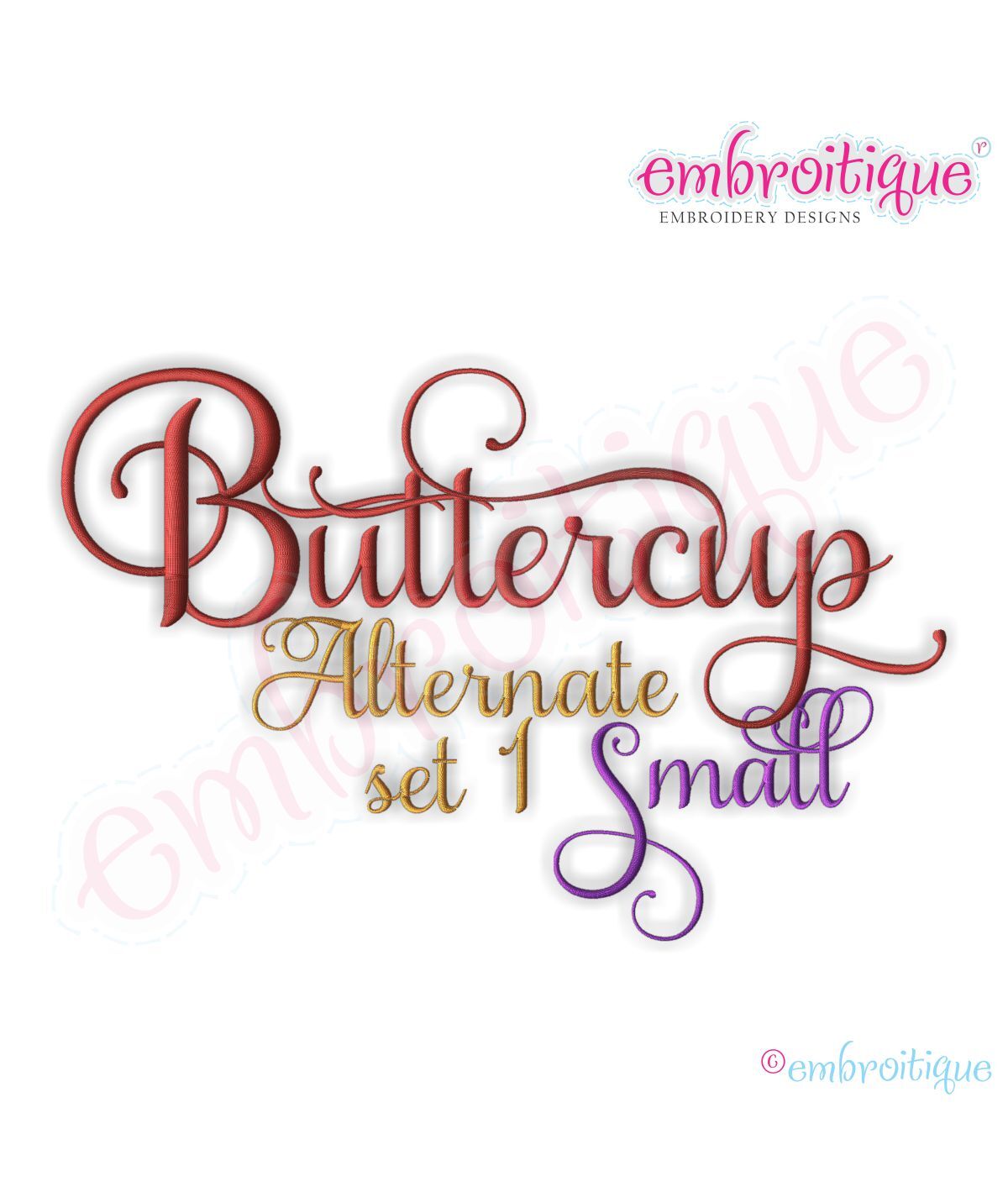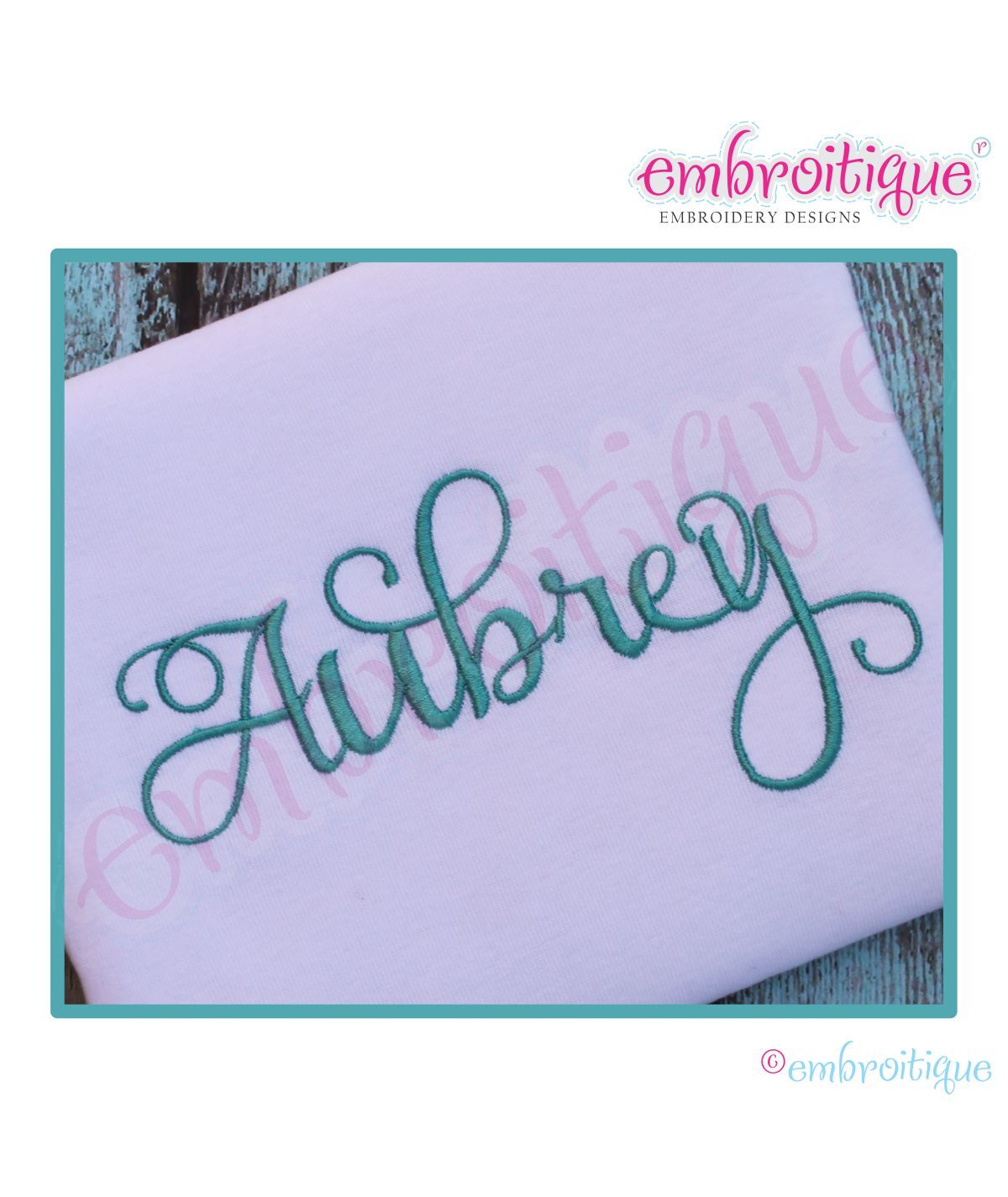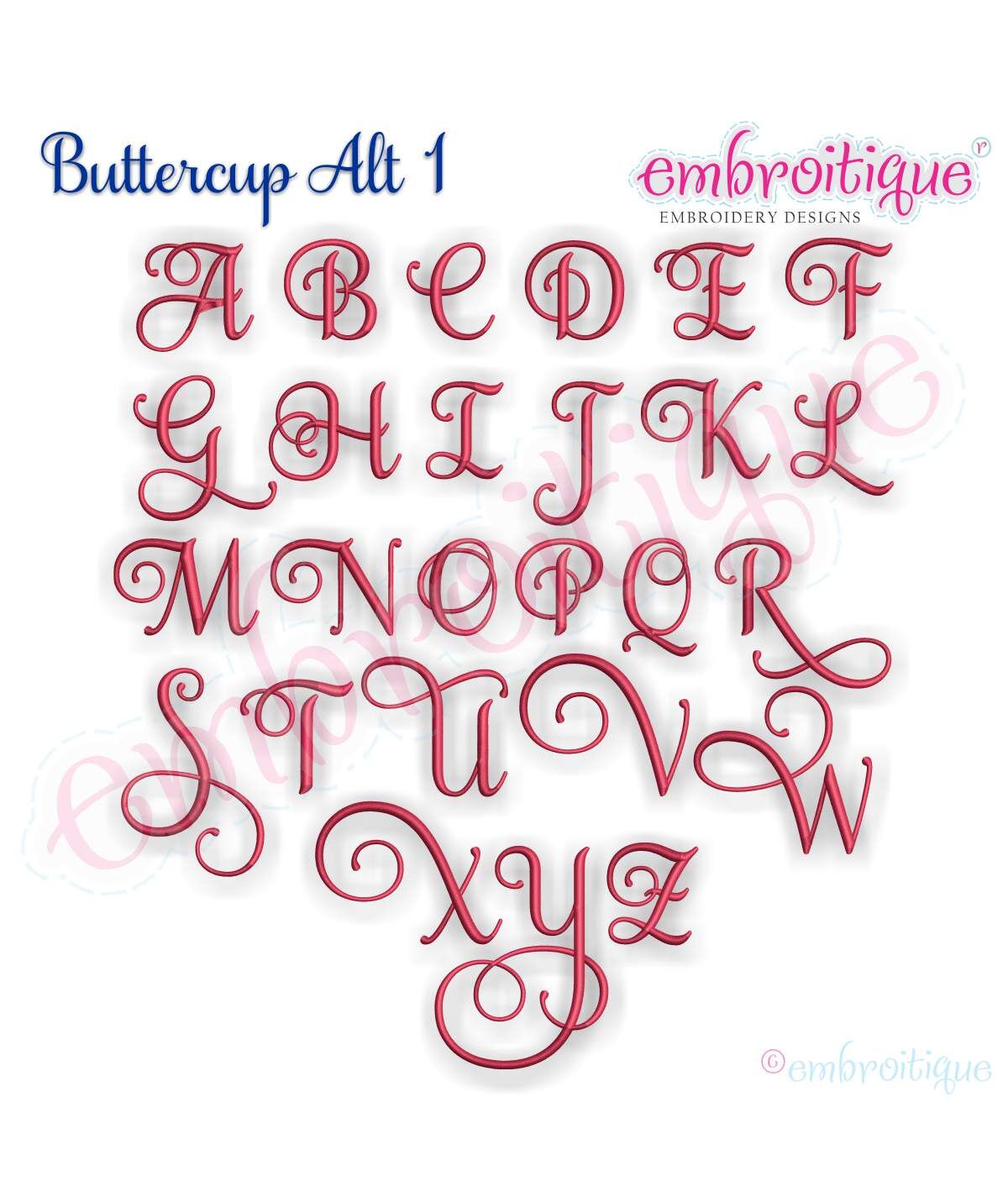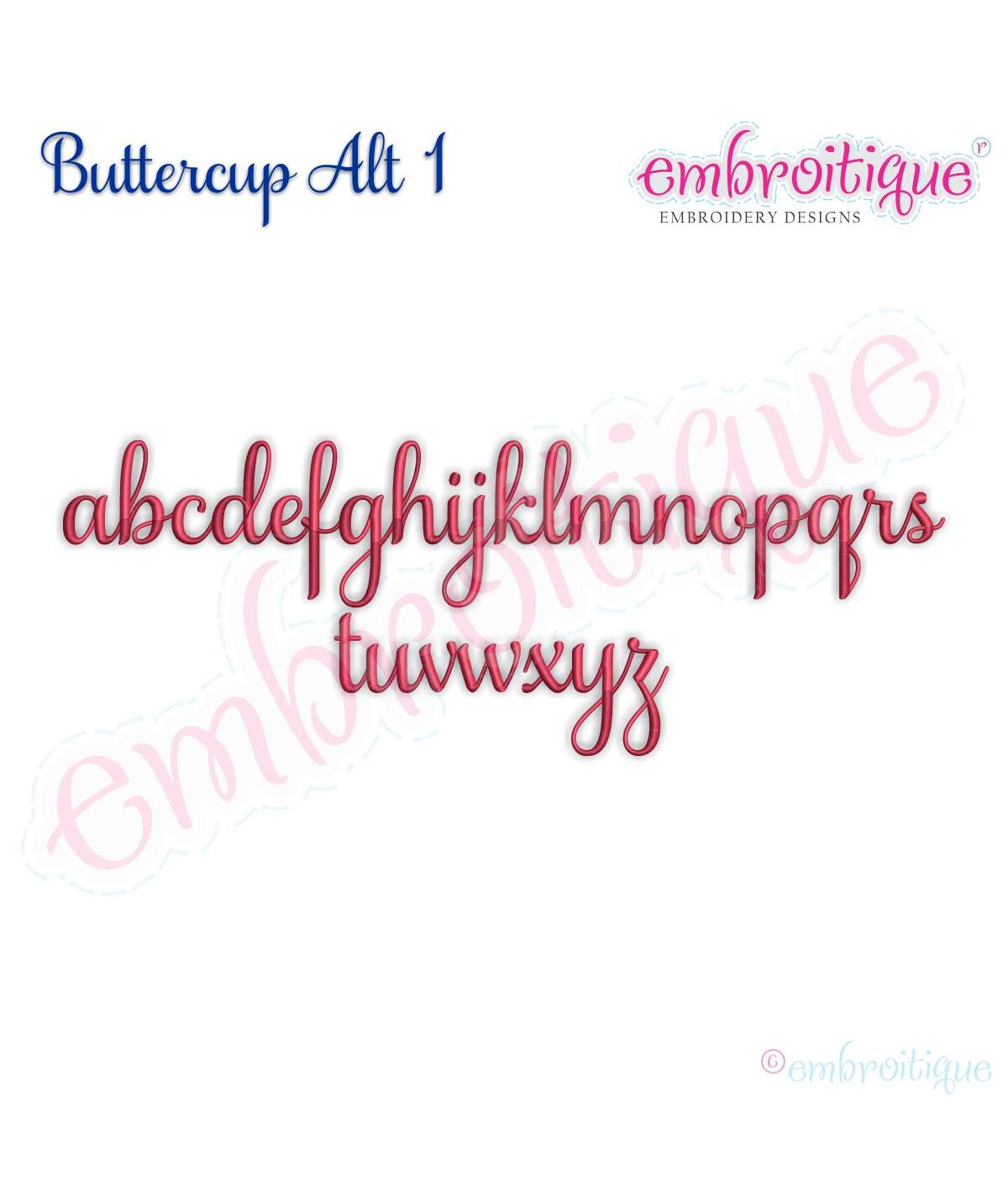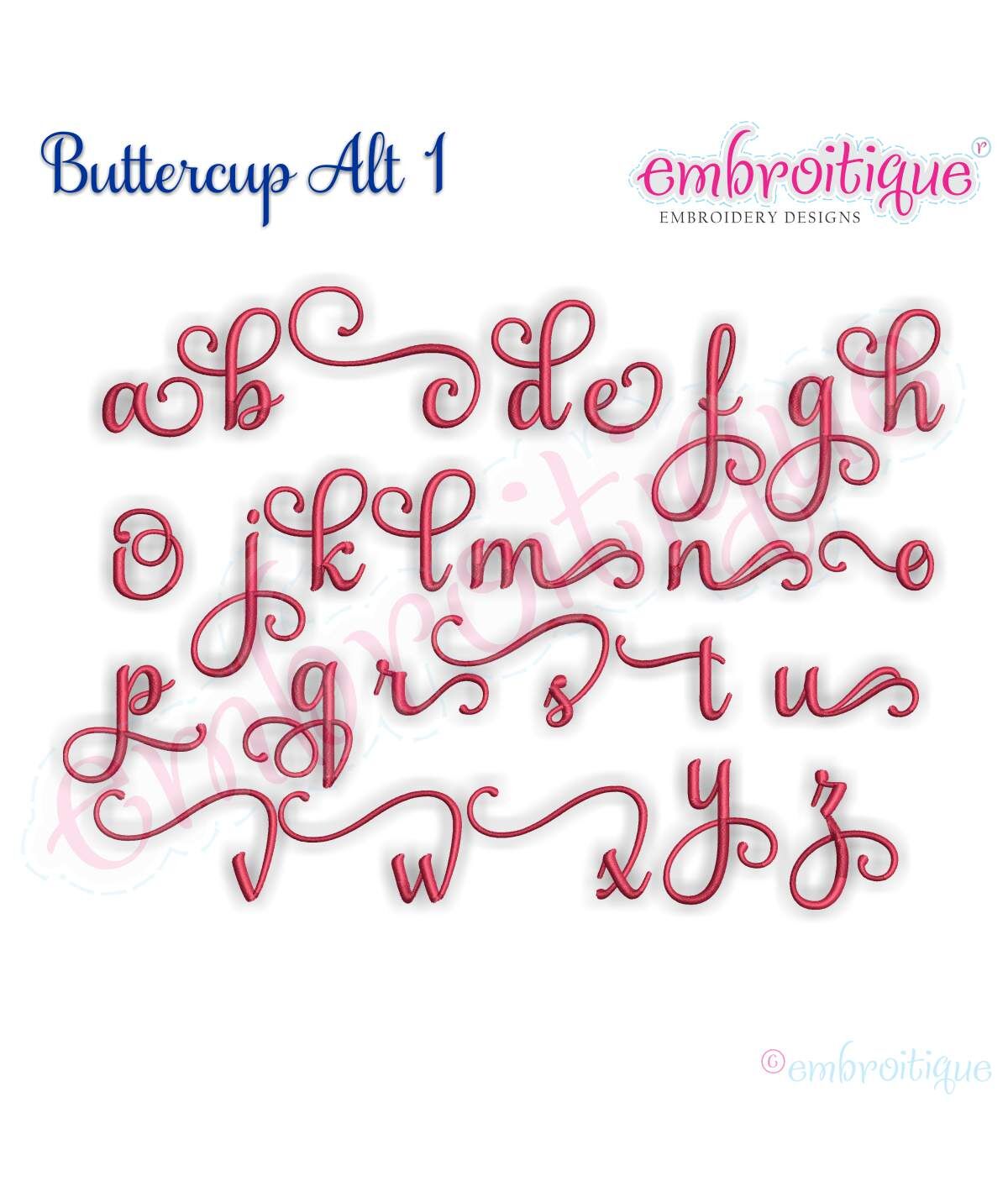
Buttercup Monogram Set Alternates 1 - Small
This alternate 1 set is designed to be combined with the Buttercup Basic Set and the other alternate sets.  It provides fancy letter "upgrades" to be mixed with the basic set.  It can be used by itself as well.  Mix and match all of the Buttercup Sets!   Each letter is an individual file.  260 files included.
***The "Aubrey" test stitch utilizes the basic set and alternate letters.